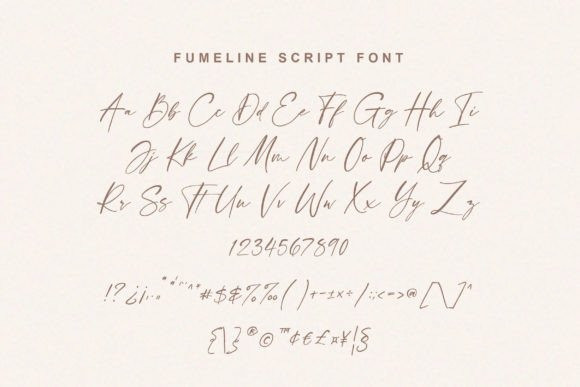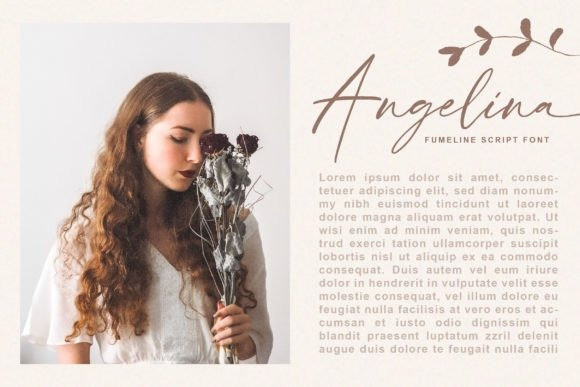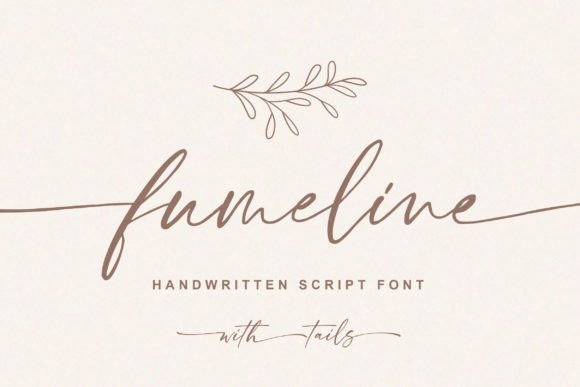
Fumeline Font
Fumeline Script Font is an exquisite handwritten font is stylish and elegant. It’s perfect for adding a touch of class to any design project. It will make your work stand out! This font is PUA encoded which means you can access all glyphs and swashes effortlessly!